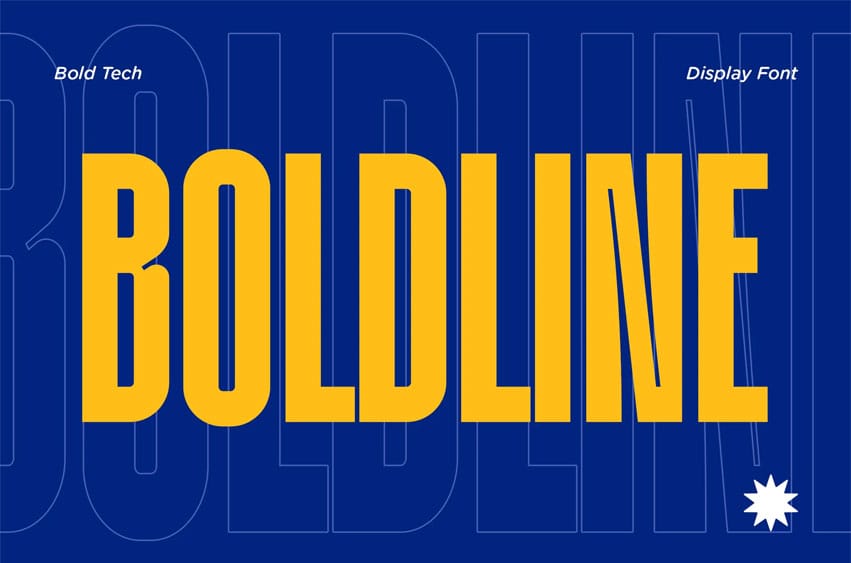
Boldline Font is a condensed geometric display typeface for powerful headlines and modern branding, designed with solid vertical proportions, sharp terminals, and confident letterforms that create a bold and structured visual rhythm.
Its tall geometric construction and balanced proportions give Boldline a confident and modern vibe. The characters feel strong, organized, and highly readable at large sizes. Because of this structure, Boldline works perfectly for branding systems, poster headlines, editorial covers, sports graphics, and tech-focused visuals. The typeface delivers a futuristic yet functional tone, making it suitable for technology brands, gaming graphics, startup identities, digital campaigns, and bold social media layouts. Its condensed width allows designers to fit more words into impactful compositions without losing clarity.
Boldline also supports 67 languages, making it useful for global design projects that require multilingual communication while maintaining a consistent visual identity. Boldline is built for designers who need clear, attention-driven typography. Whether you are designing a brand identity, poster campaign, magazine cover, esports banner, or app interface headline, this typeface helps deliver a confident and structured visual voice.
The bold geometry makes every word feel deliberate and strong, which is ideal for modern startups, sports branding, tech products, digital marketing visuals, and editorial layouts. When a design needs presence and clarity, Boldline keeps the message direct and visually powerful.
Key Features : Strong Geometric Structure
- Bold vertical strokes and balanced proportions create a solid and modern typographic presence.
Condensed Display Style
- Narrow letterforms help maximize space while keeping headlines impactful and readable.
High Impact Headlines
- Perfect for posters, branding systems, packaging titles, editorial covers, and social media graphics.
Modern Tech Aesthetic
- Works well for technology brands, gaming visuals, esports graphics, and startup identity design.
Multilingual Support
- Supports 67 languages, allowing your brand or project to reach international audiences.
Clean & Structured Letterforms
- Clear shapes and consistent spacing make layouts feel organized and professional.